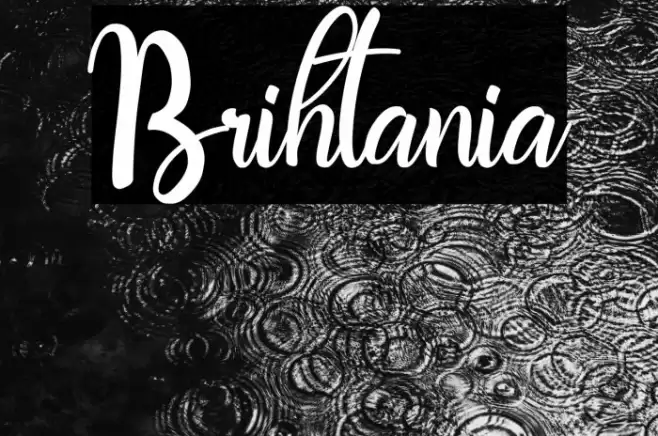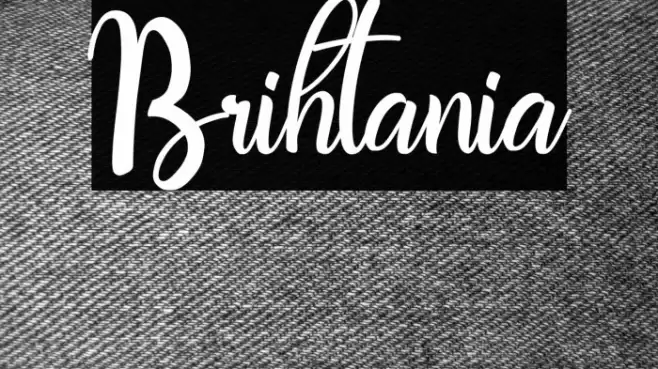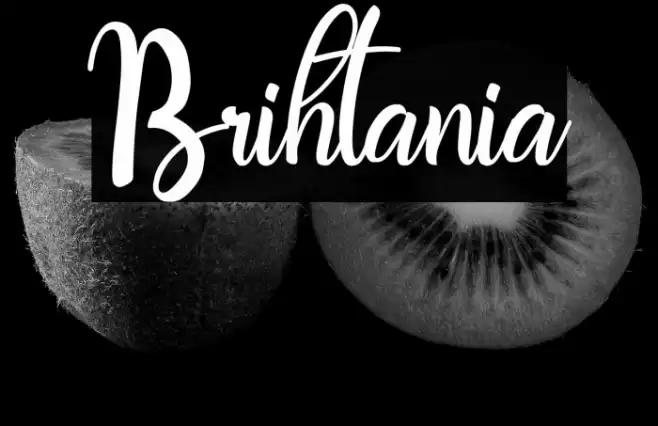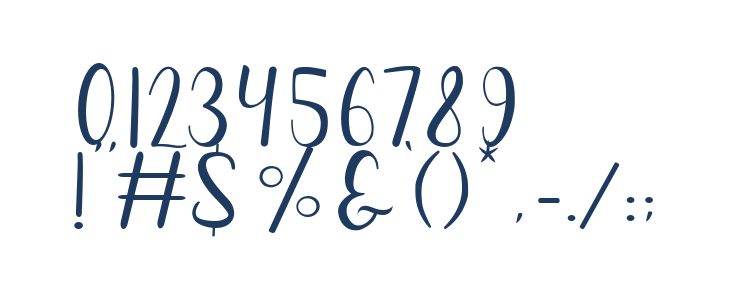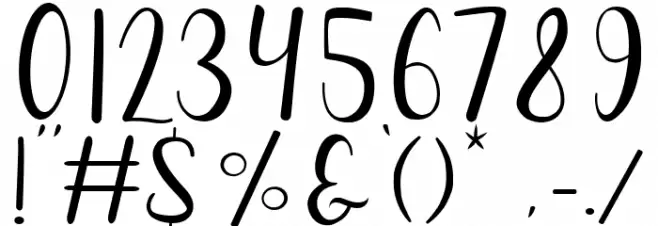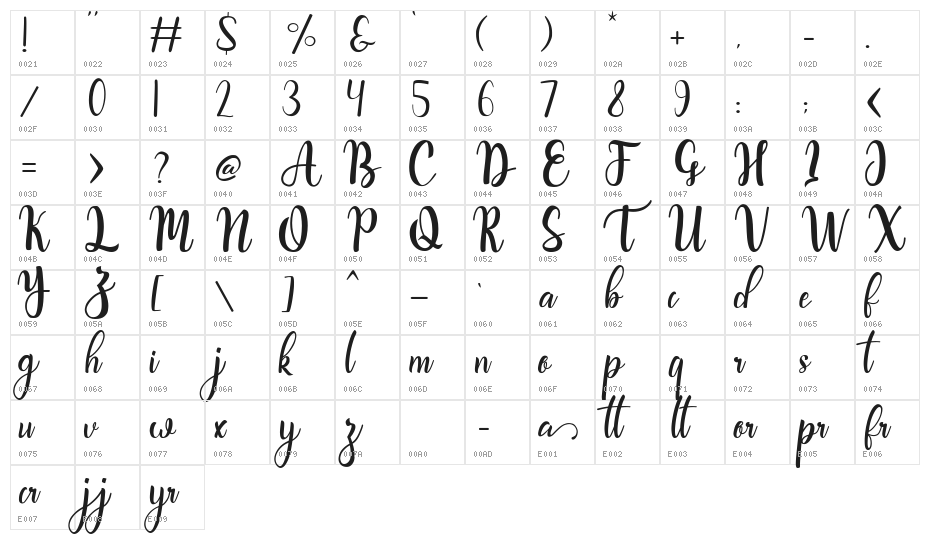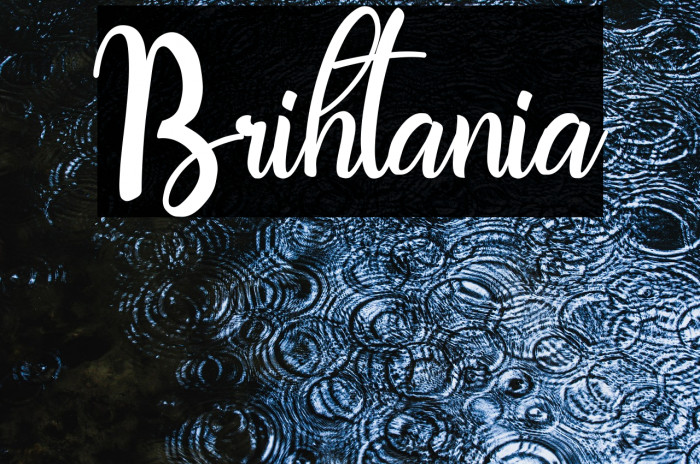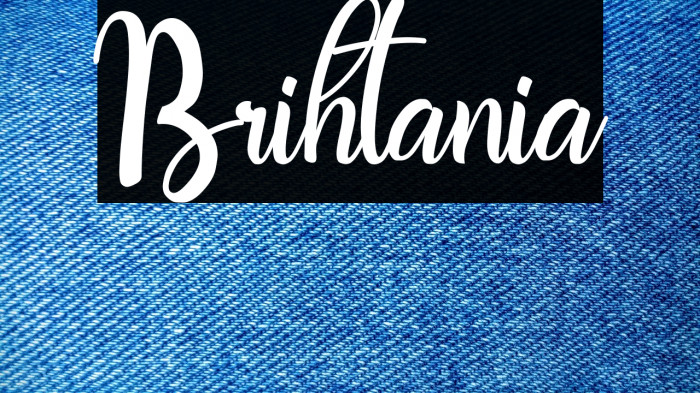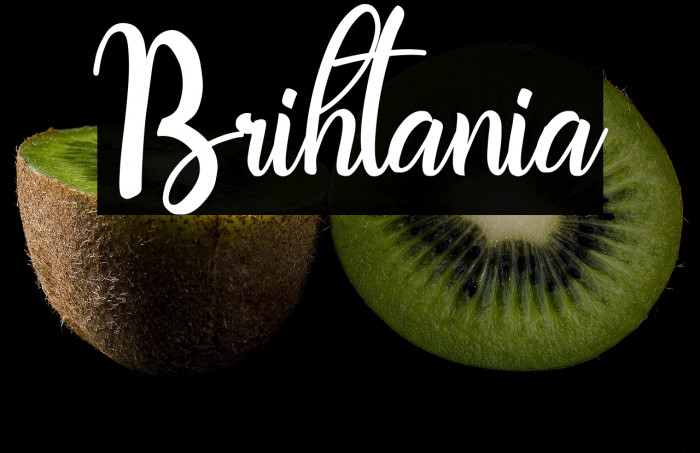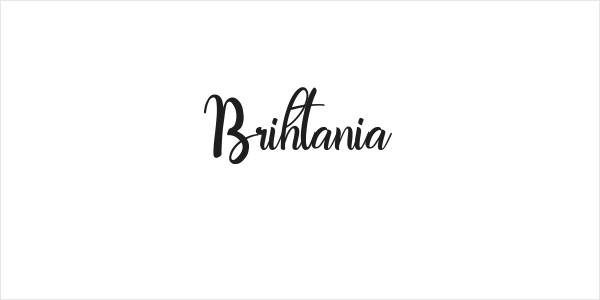
Brihtania Font
Brihtania Description
This font features a flowing, cursive style with elegant, sweeping curves and a handwritten appearance. The uppercase letters are bold and expressive, with distinctive loops and flourishes that give them a dynamic and artistic look. The lowercase letters maintain a consistent style, with smooth connections between characters, enhancing the script-like quality. The numerals are tall and slender, complementing the overall aesthetic. Special characters are creatively designed, adding to the font's decorative appeal. This font exudes a sense of sophistication and charm, making it ideal for projects that require a personal touch.
A cursive, handwritten font with elegant curves and artistic flourishes from Uncategorized fonts.